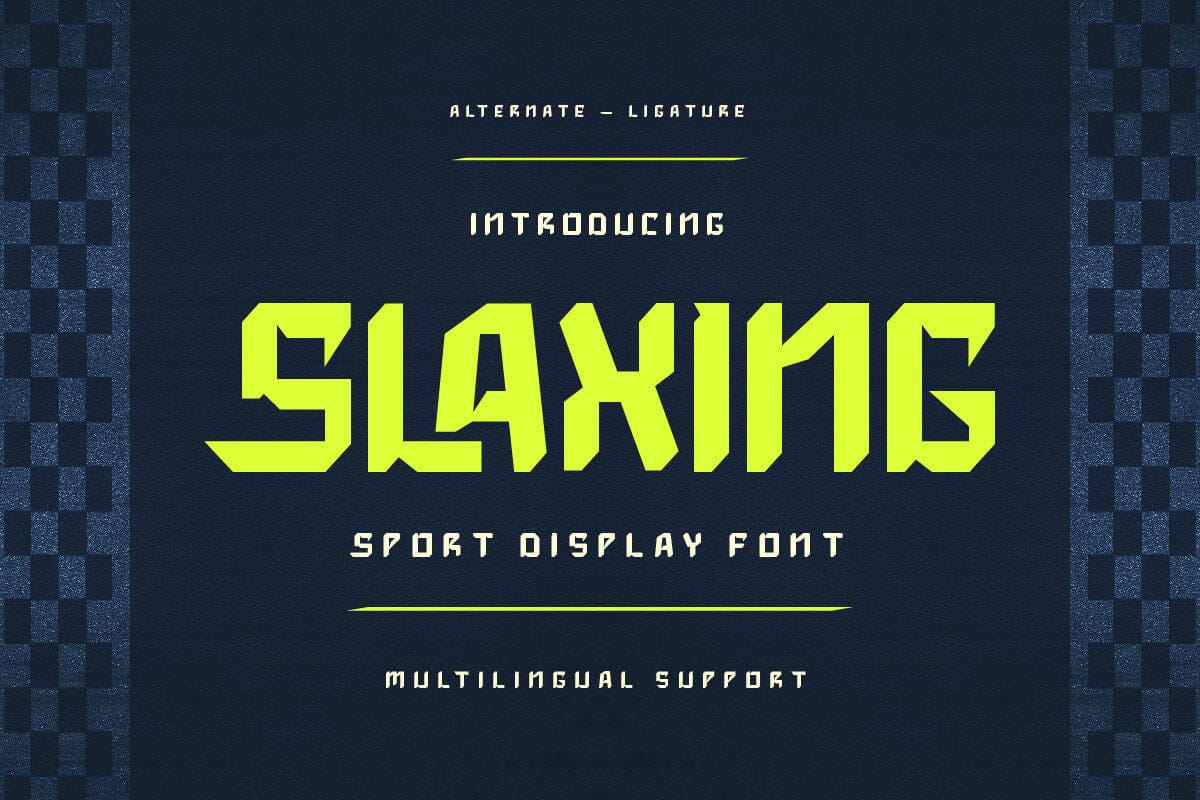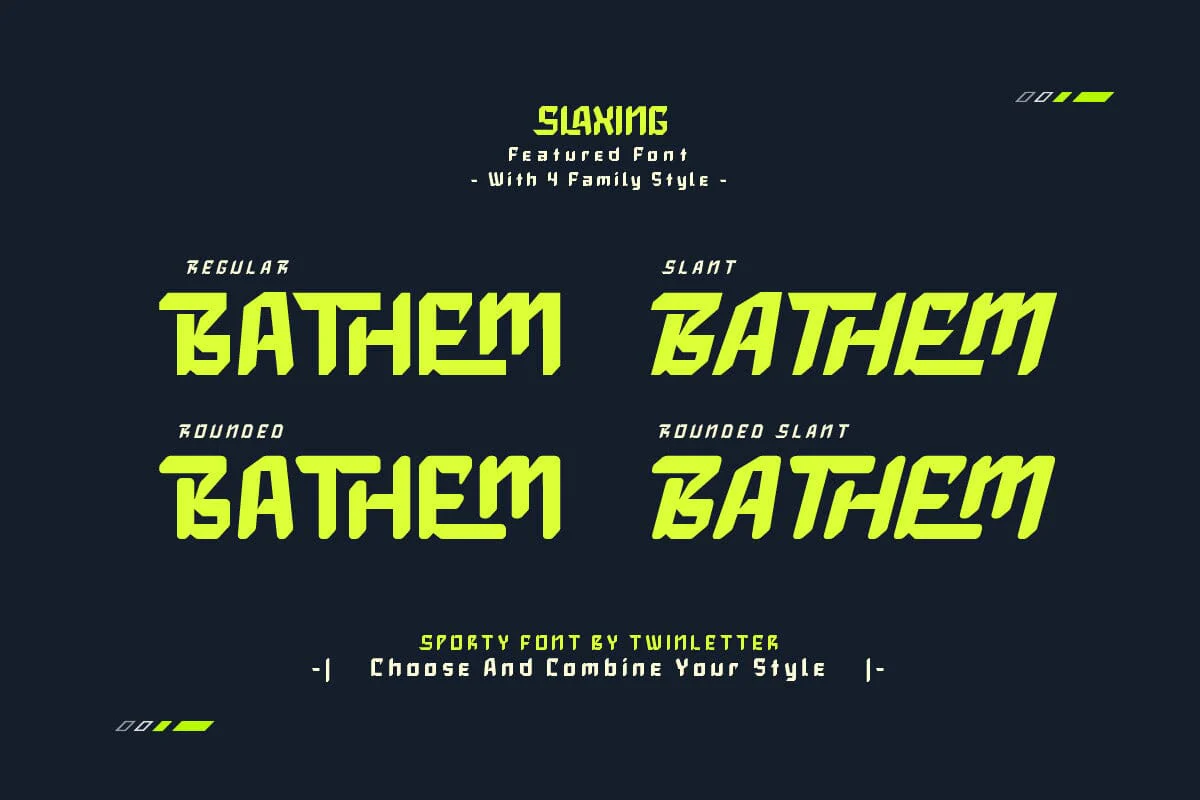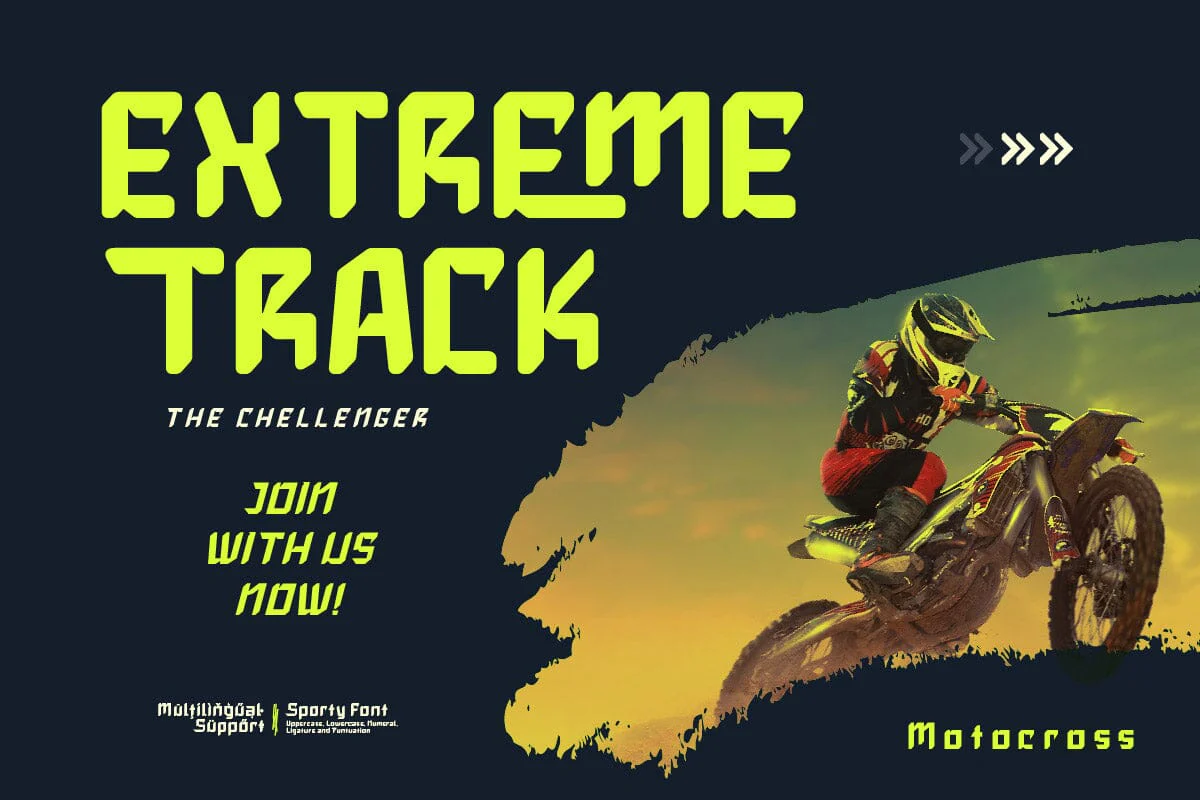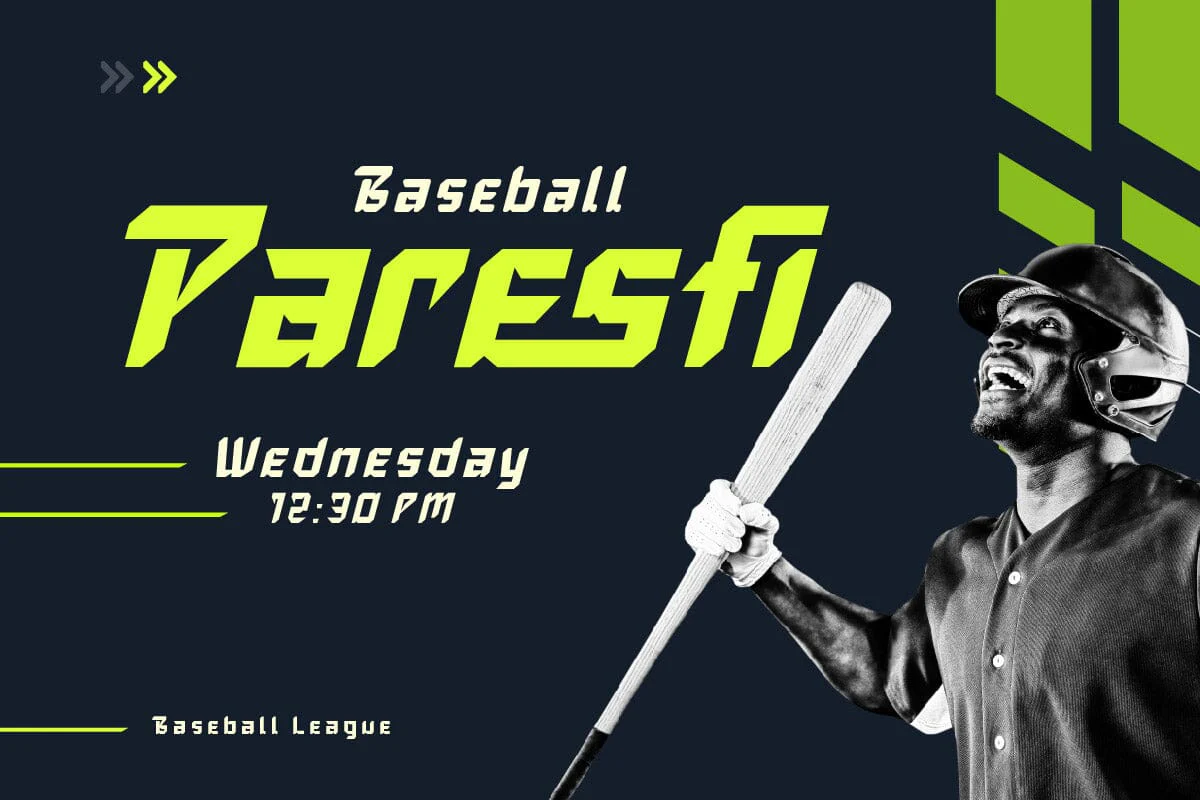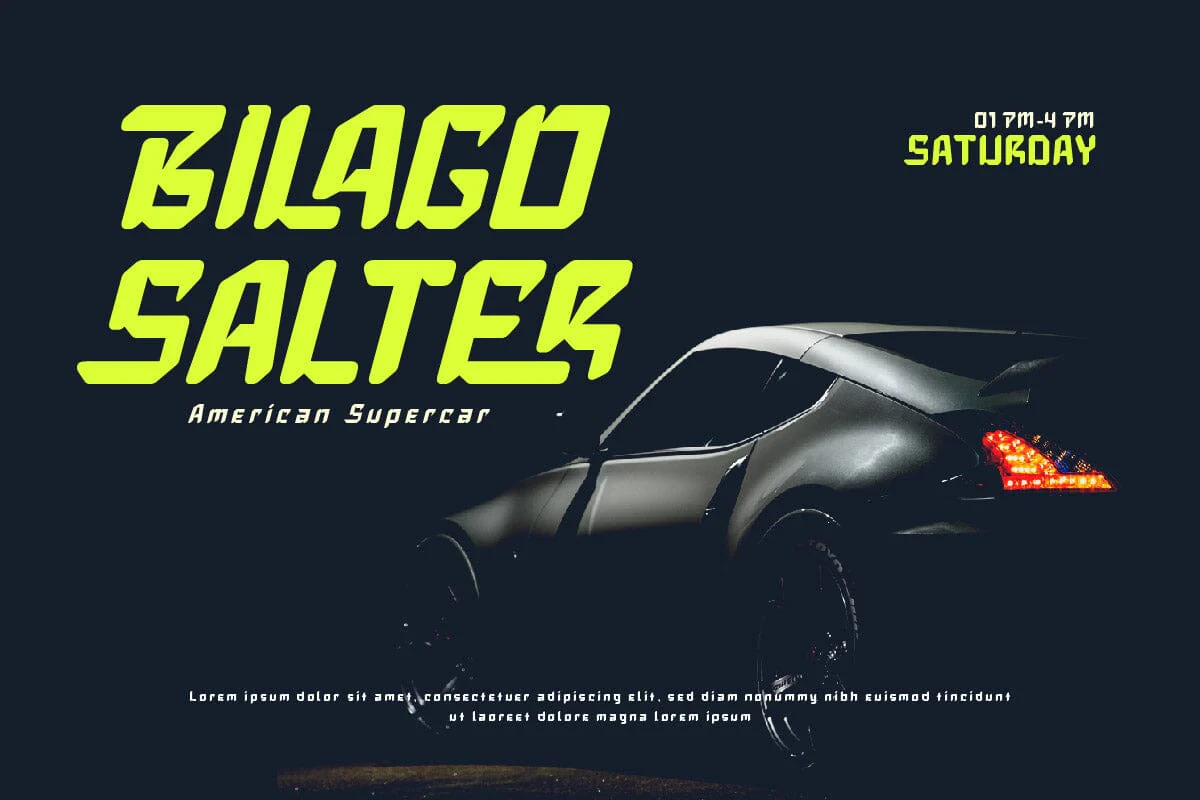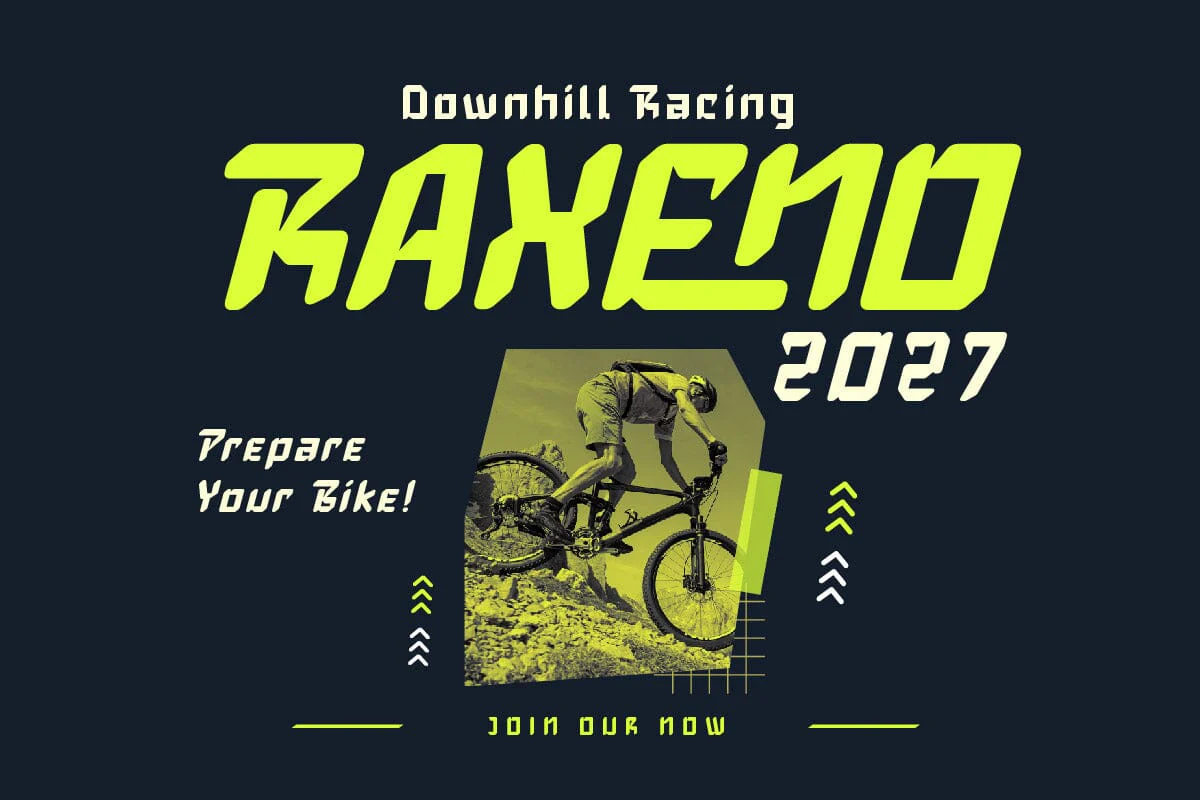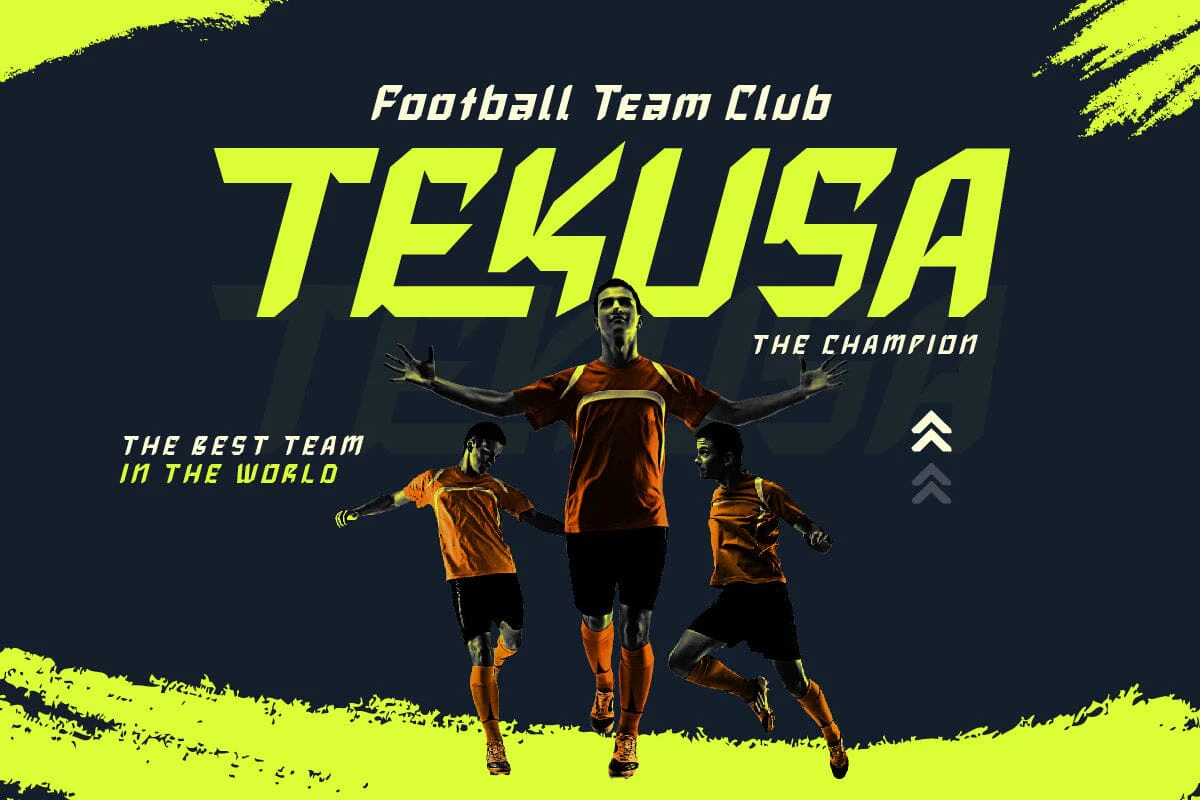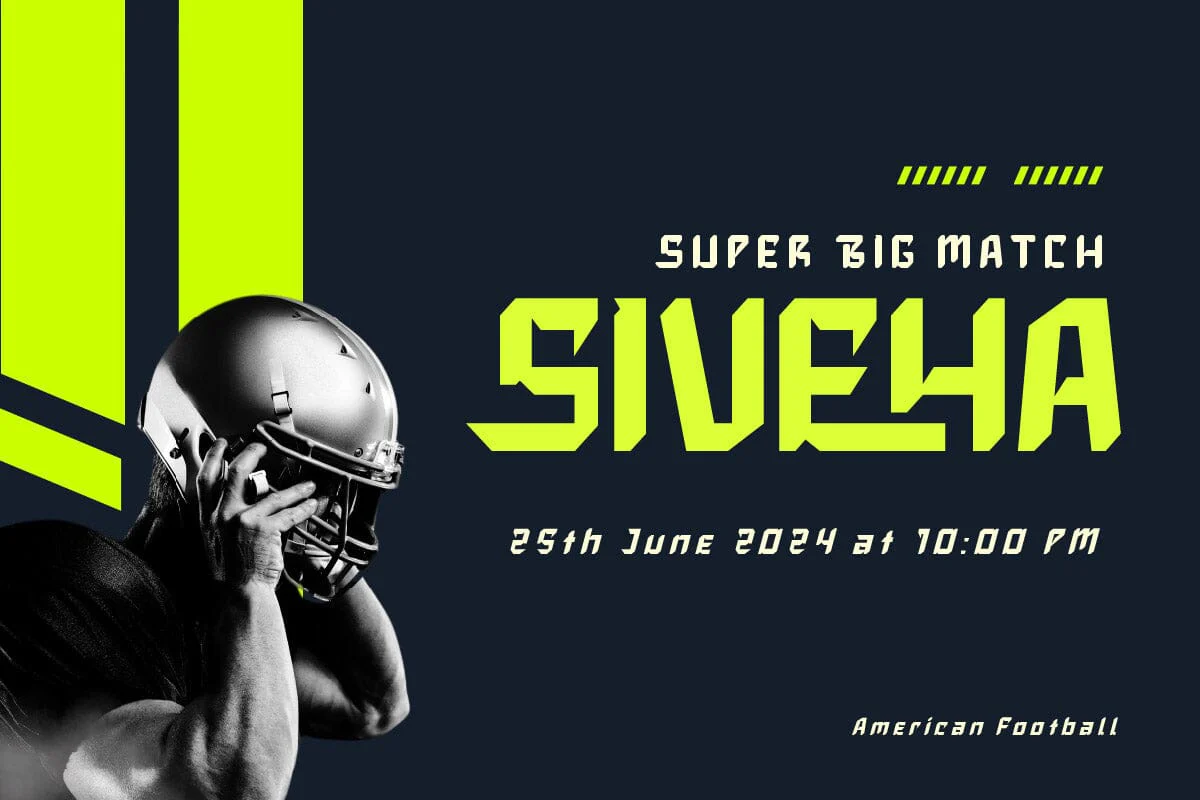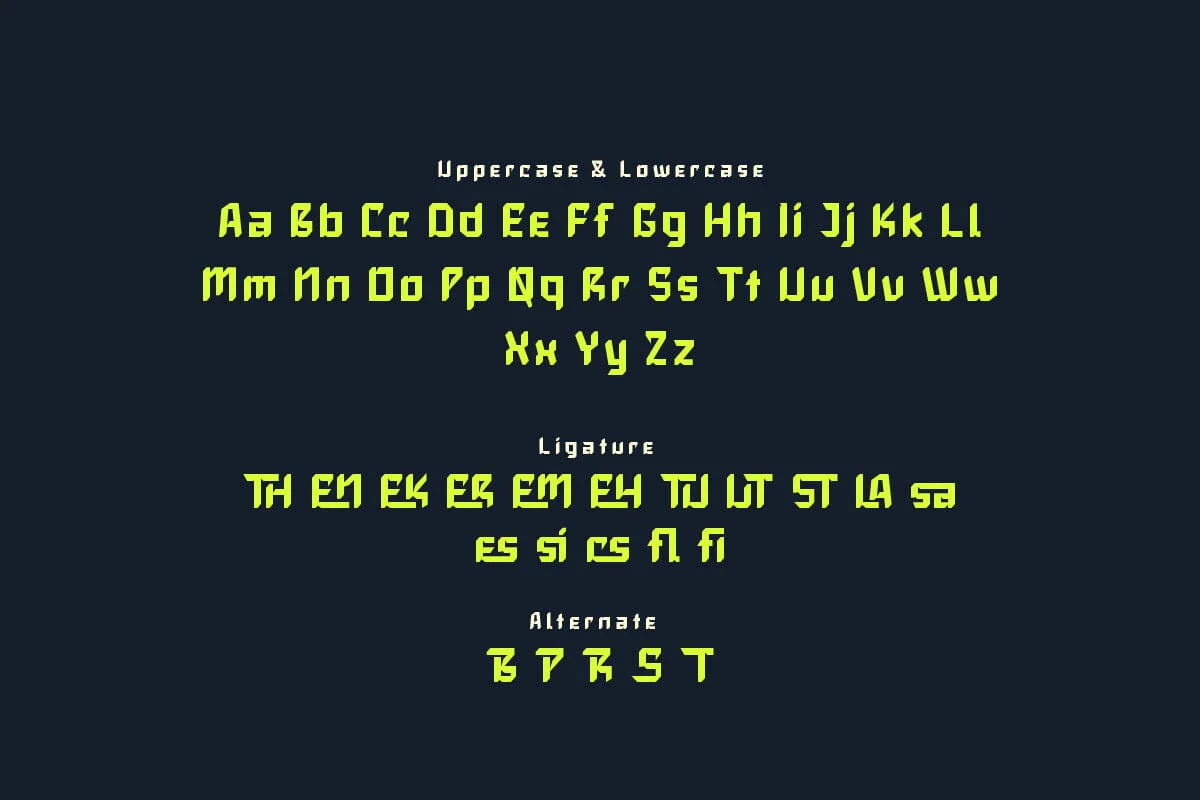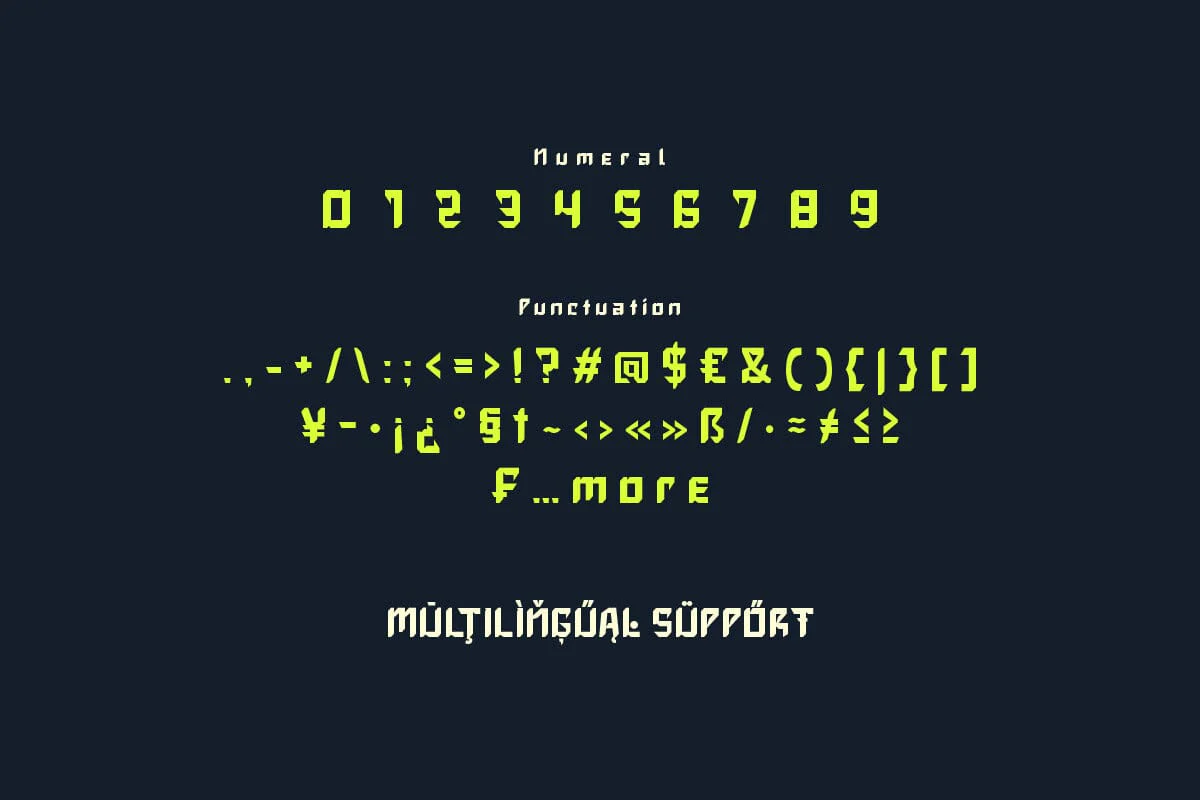
Slaxing - Sporty Display Font
Slaxing is a sporty display font that captures the spirit of competition and athleticism. Its bold, dynamic characters are perfect for sports logos, team jerseys, and any design where you want to convey a sense of action and excitement. But Slaxing is more than just a font, it’s a way to bring the energy and passion of sports to your designs. With Slaxing, your designs won’t just be seen, they’ll be felt. It’s like a burst of energy on a calm day, bringing a sense of excitement and dynamism to any design, making it perfect for any sports-related design.